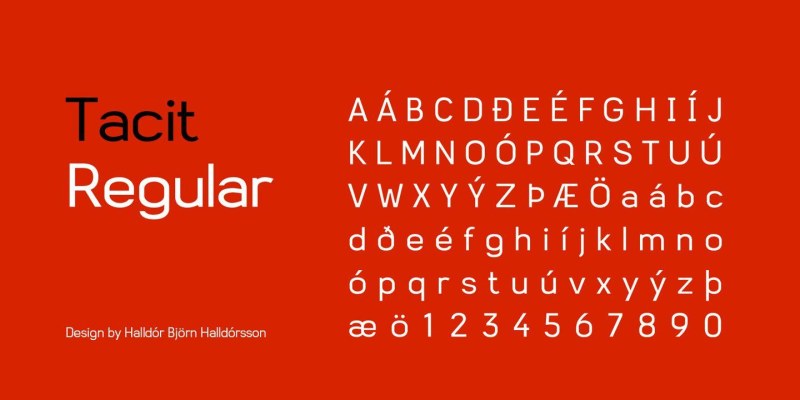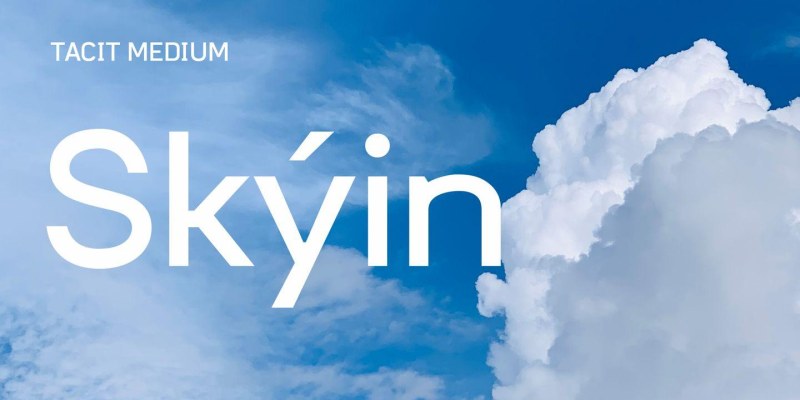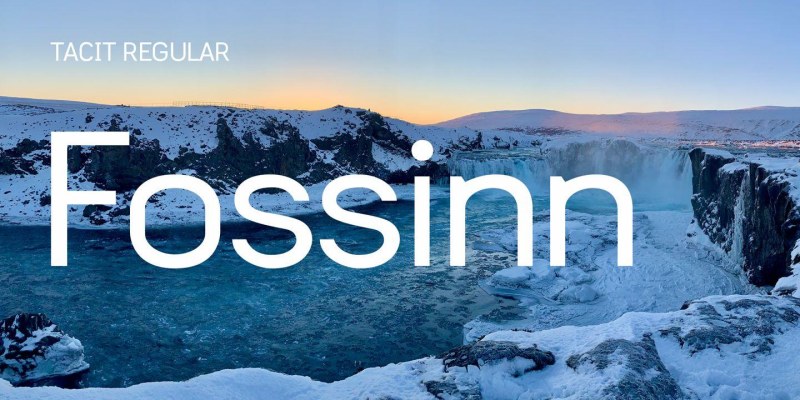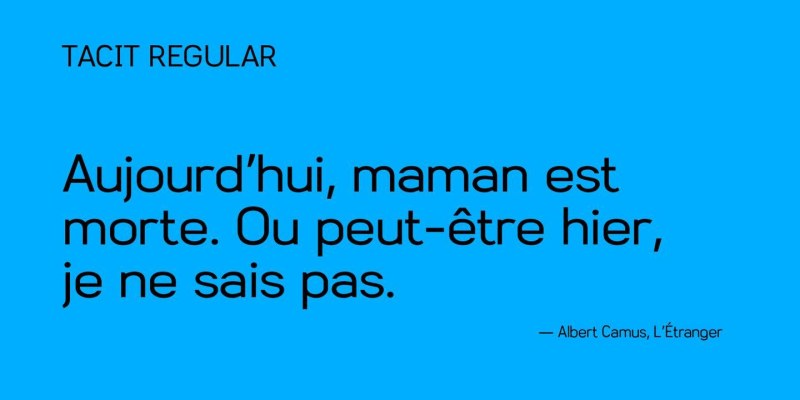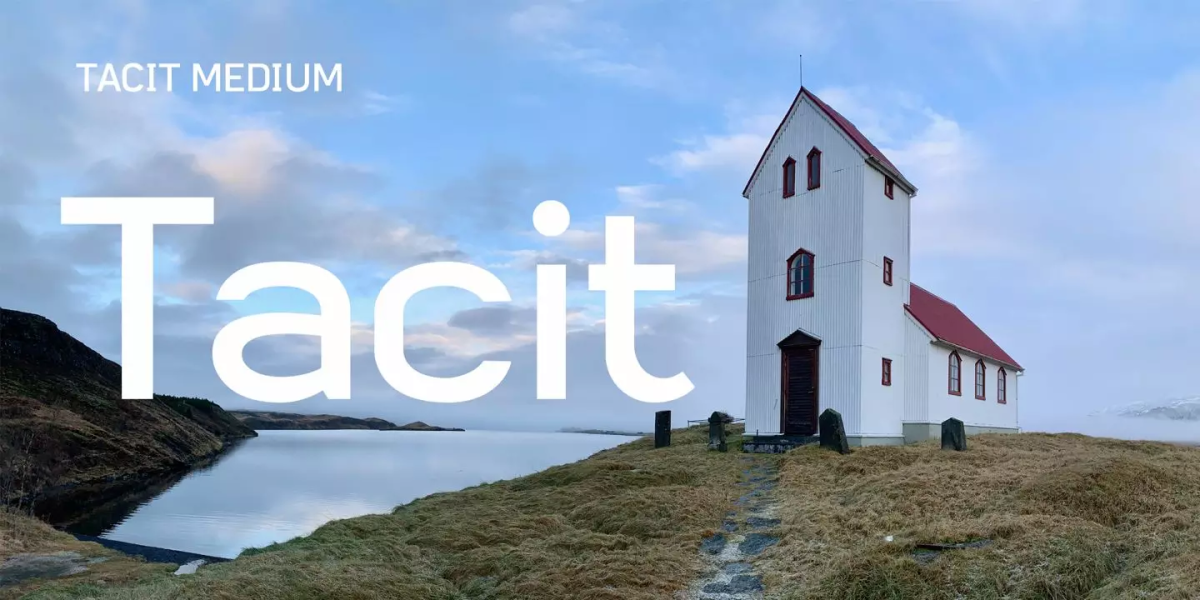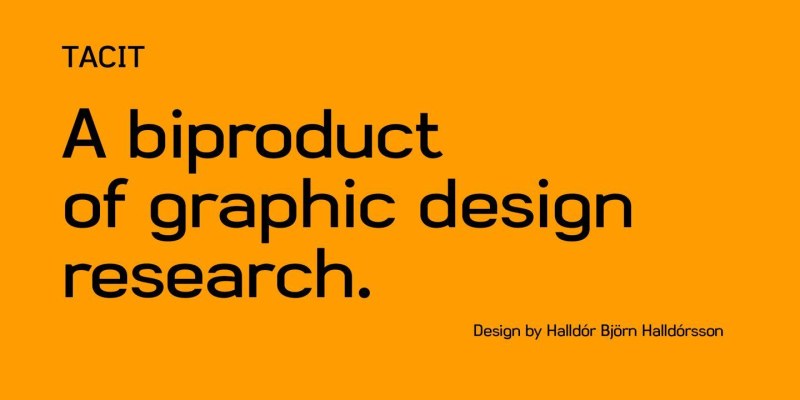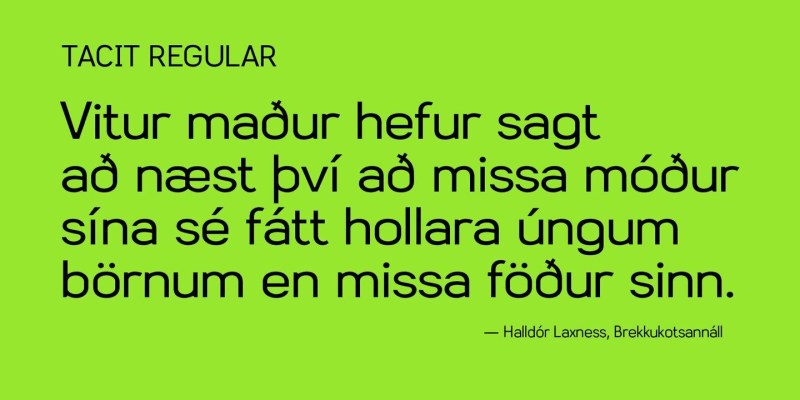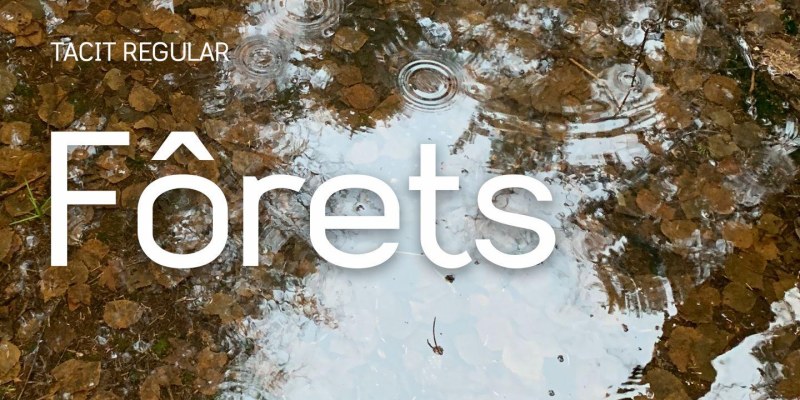
Tacit Font
Tacit is the first typeface to be the creative outcome of a PhD thesis in graphic design. The work’s main study had the aim of documenting design processes in an effort to externalize the tacit (experiential) knowledge of graphic designers. Initially the task was only to design several glyphs but the work resulted in a full typeface. Tacit is an elegant sans serif with a distinctive character and is legible at small and large point sizes